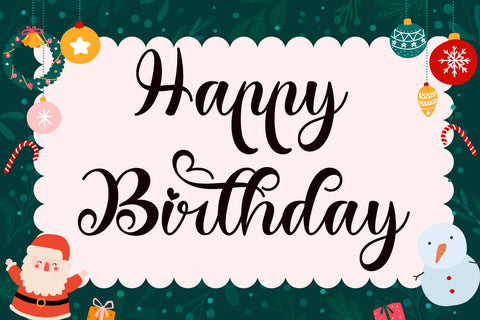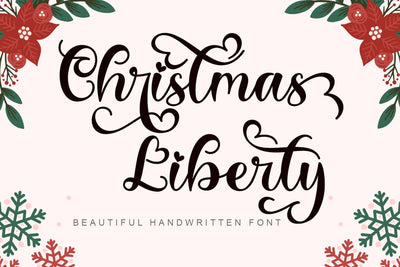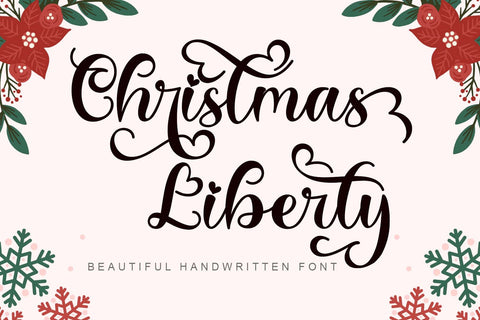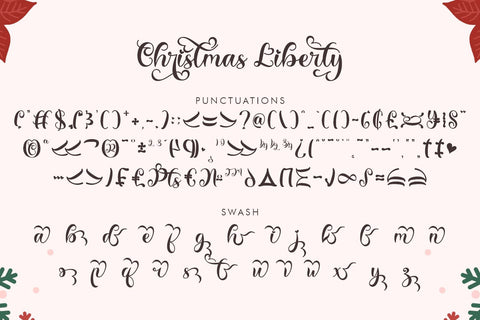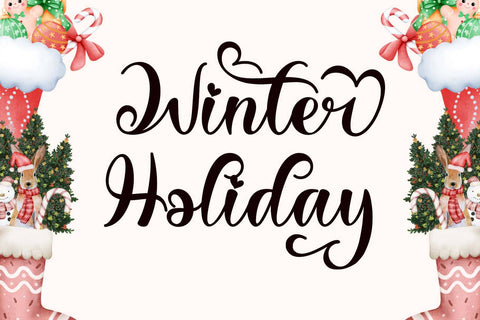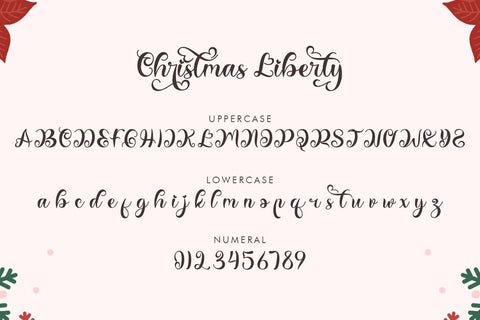
Christmas Liberty
"Christmas Liberty" is a unique and beautiful handwritten font. It features uppercase and lowercase letters, numerals, punctuations, swashes, alternates, and multilingual support. It's perfect for banners, posters, prints, branding, stickers, logos, Christmas invitations, weddings, and more.